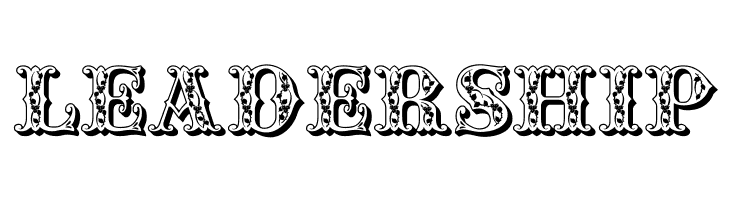
Ghoul Bone - Personal Use Outline Font
- Font: Ghoul Bone - Personal Use Outline
- No. of Characters:: 103
An ornate and decorative font with artistic curves and flourishes.